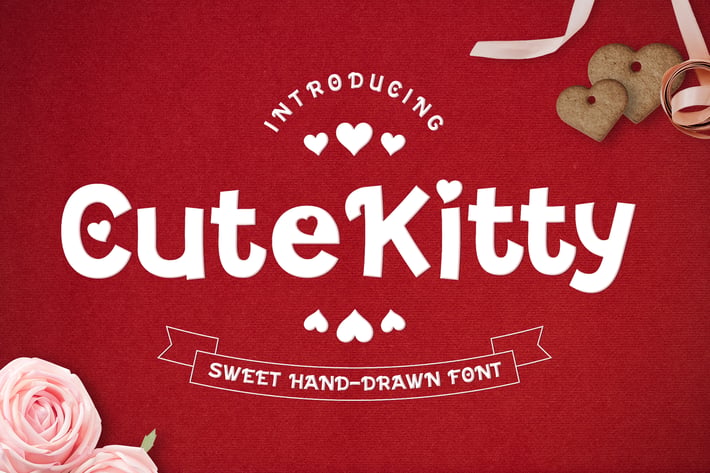
Cute Kitty - Decorative Valentine Font
Are you looking for an cute decorative font for valentine? We can help! Try to download our Cute Kitty sans font. The font is suitable to use for all all purpose. Try to use it on Wedding invitation, greeting card, poster, quotes, postcard, photography, branding, editorial, valentine and signature to see the best of it :)